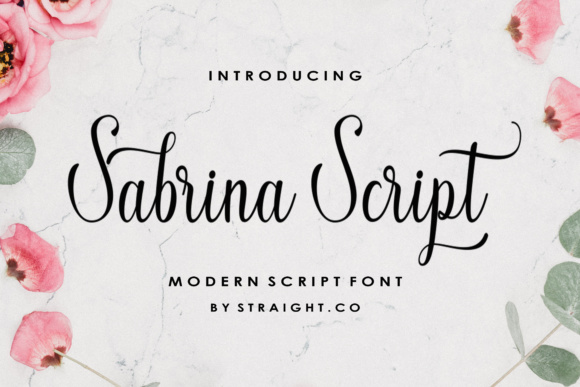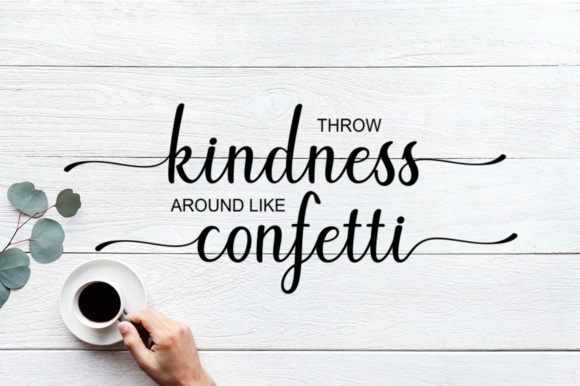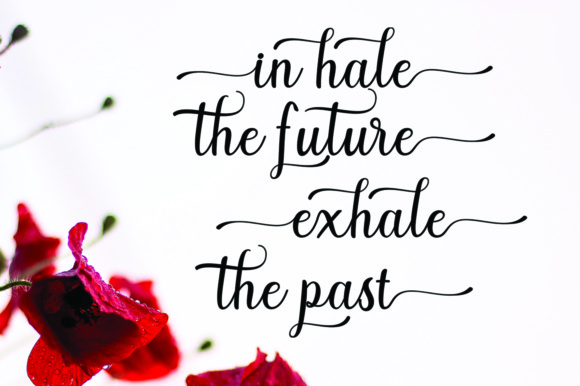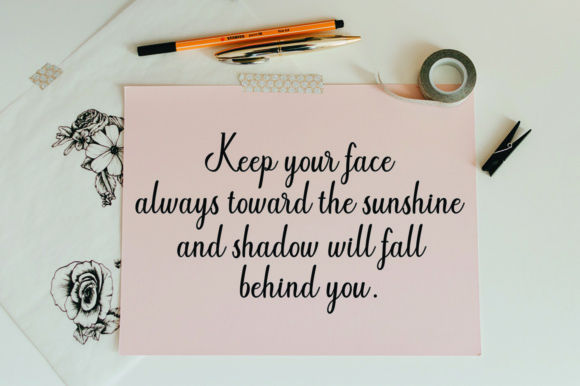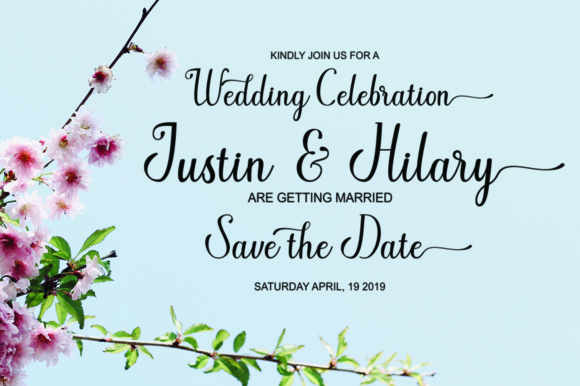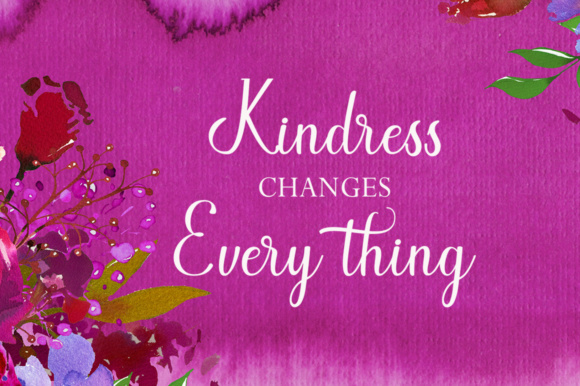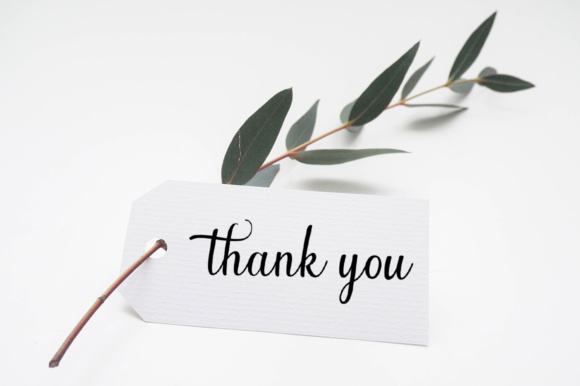
Sabrina Script Font
The Sabrina is a modern script font with an elegant style. Toggle between the regular and swashed letters to get a handwritten, professional look.